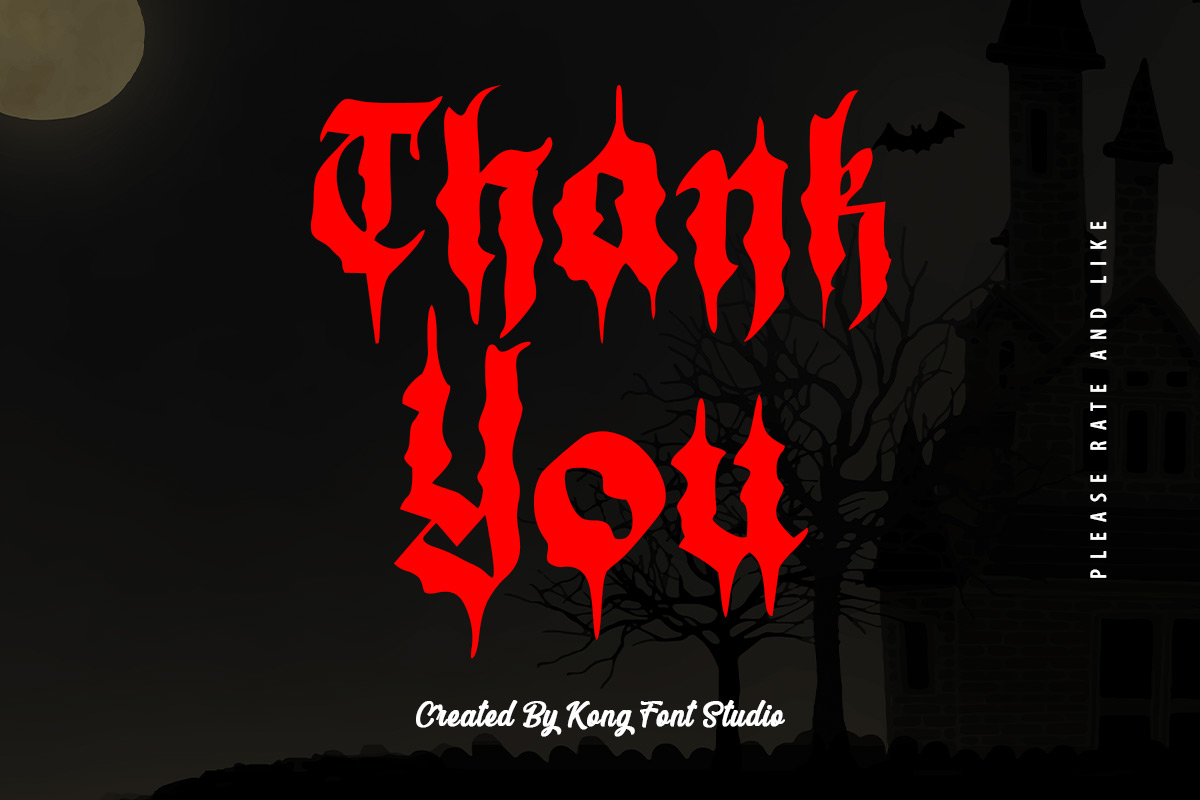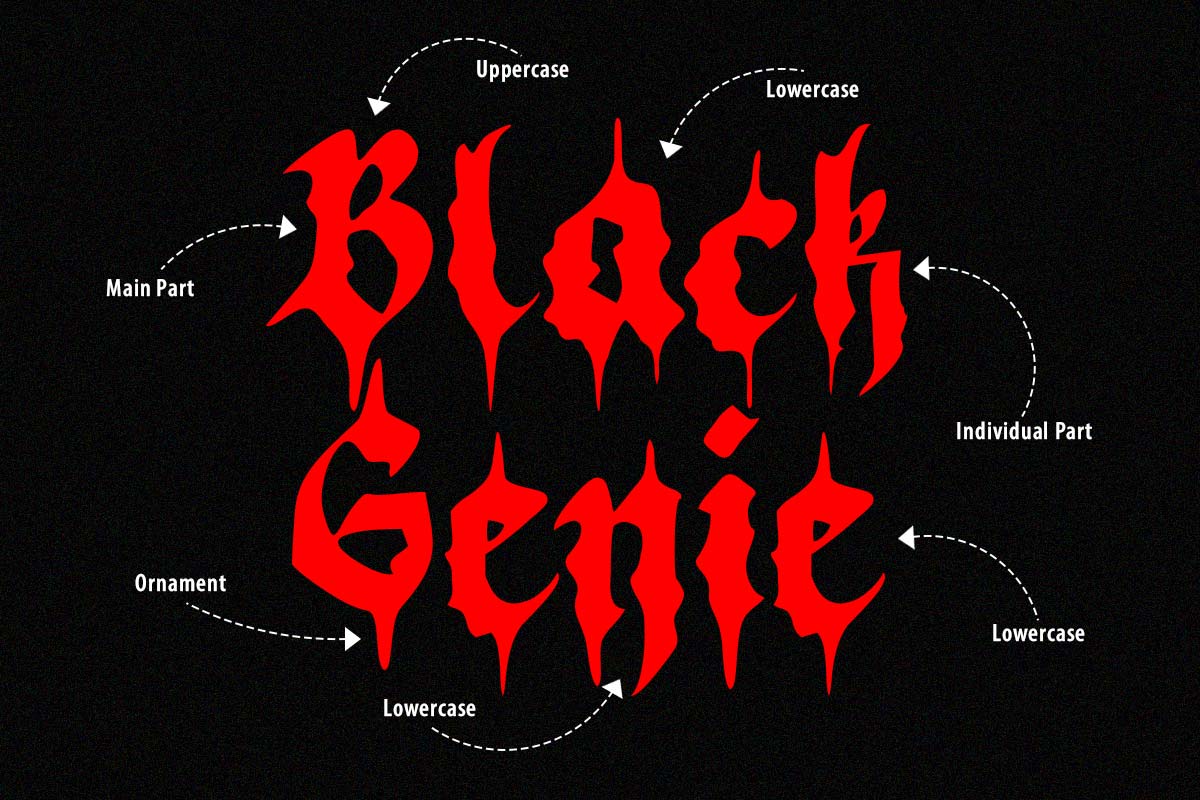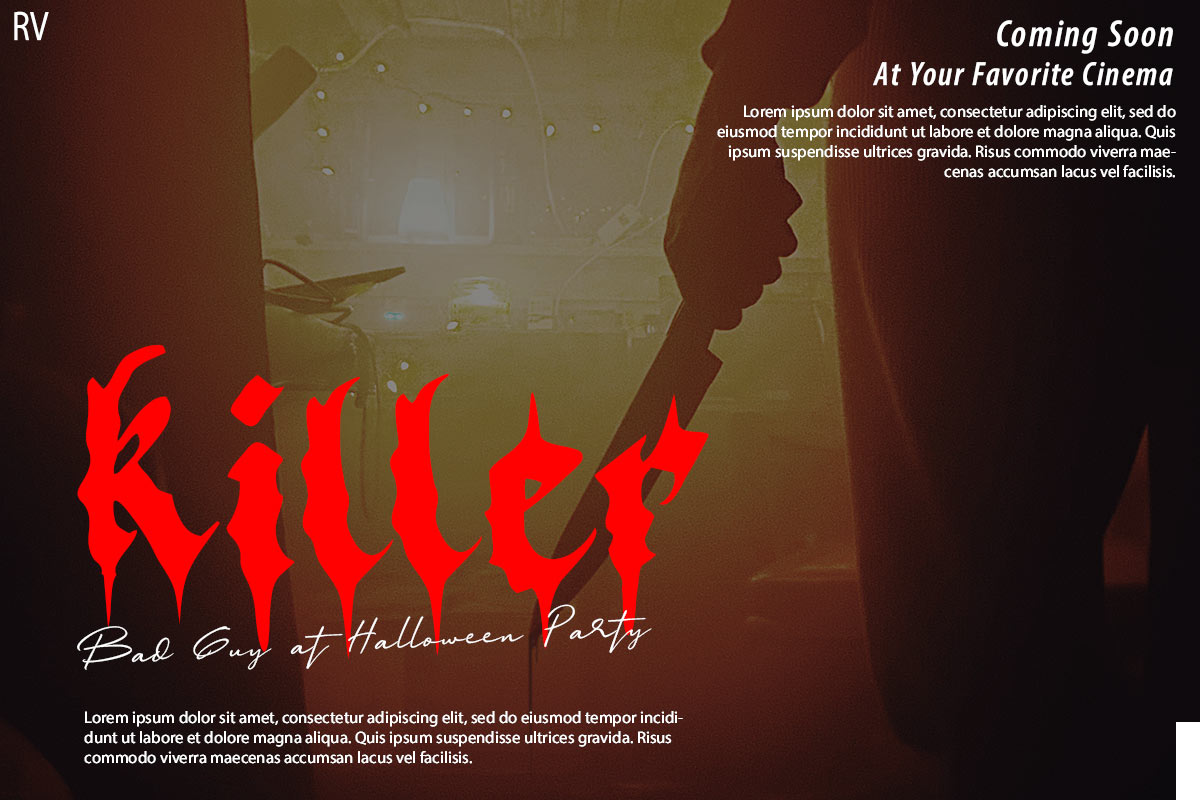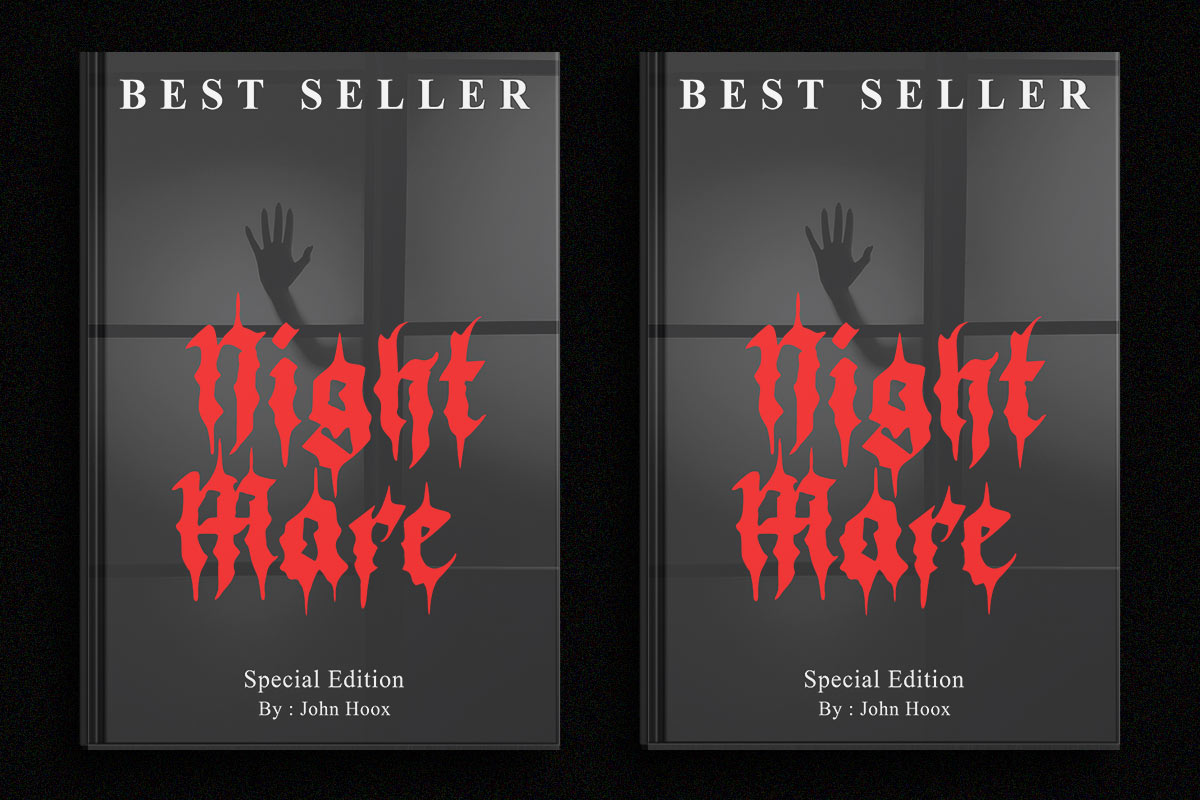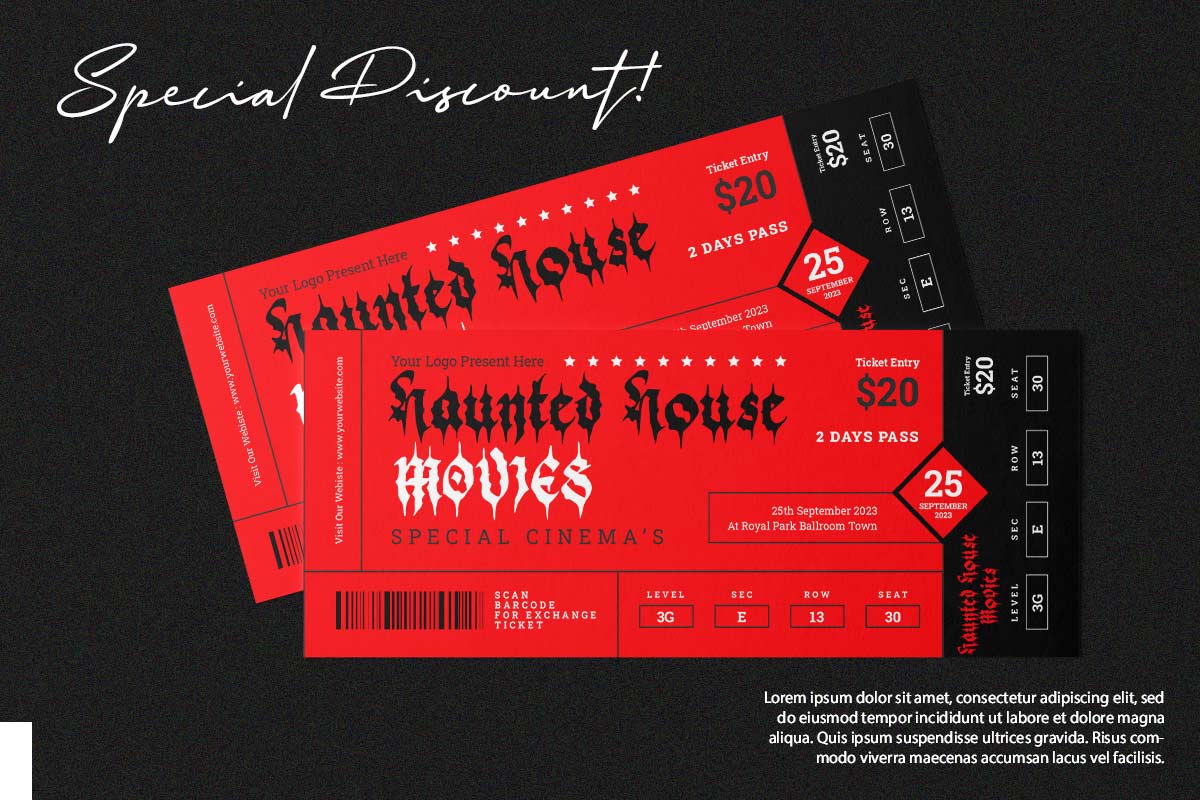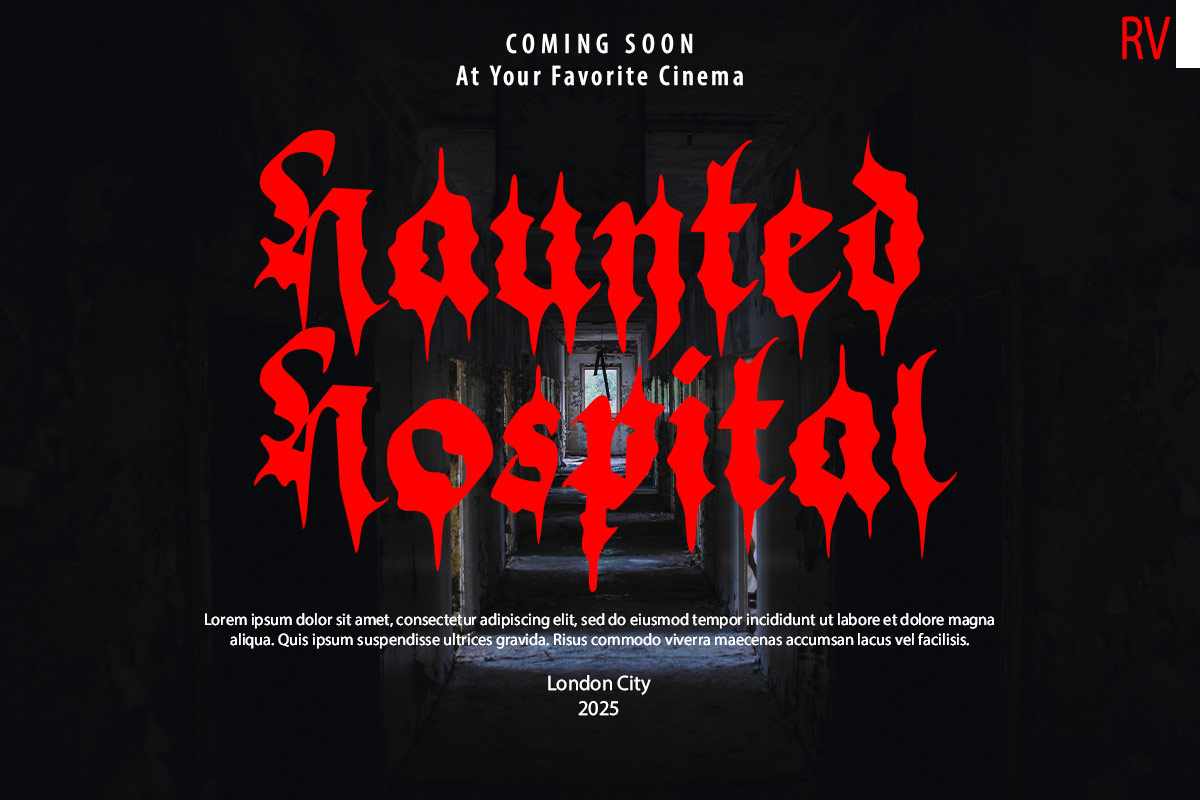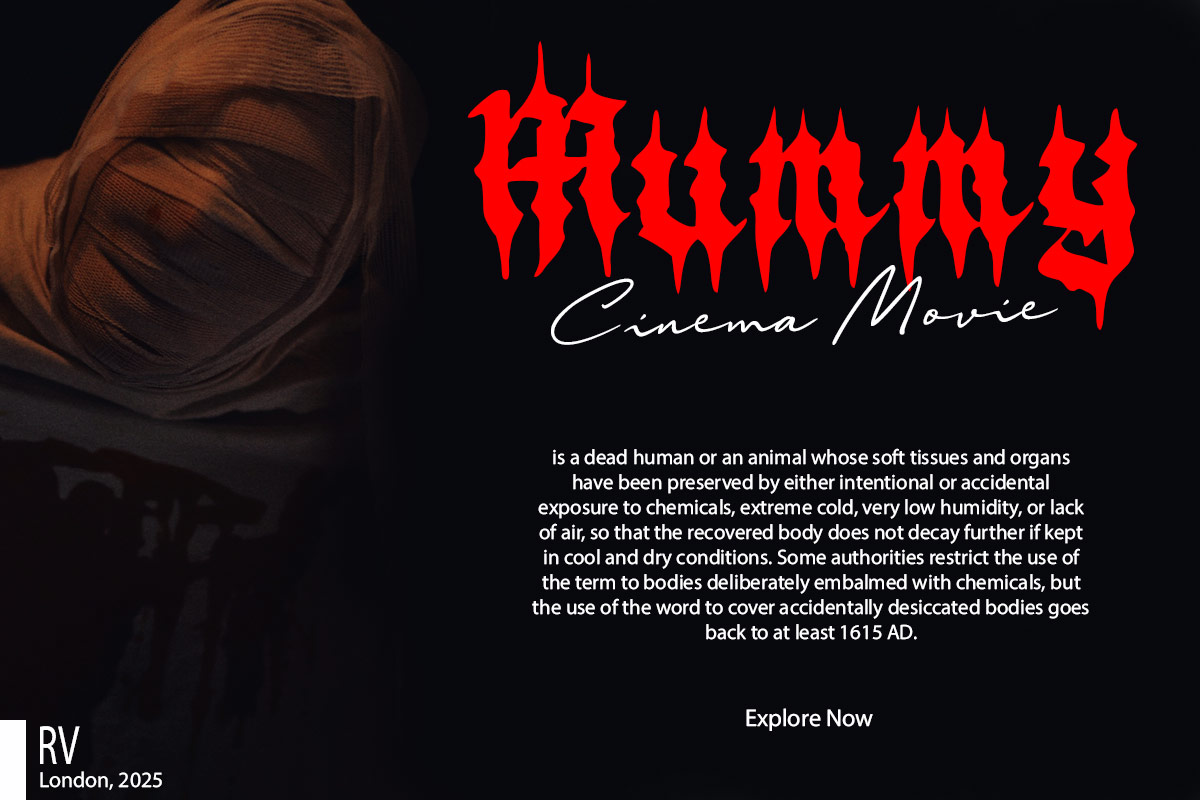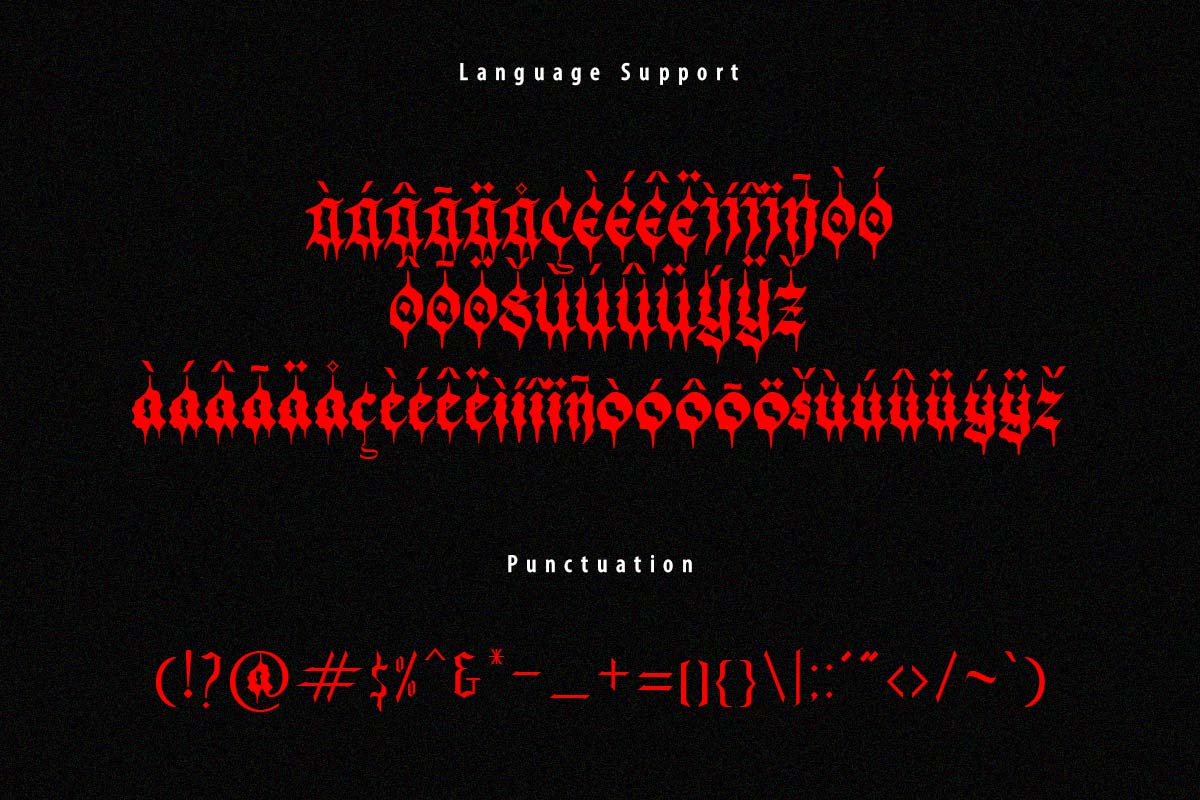
Black Demon Blackletter Font comes as a part of the modern gothic from Blackletter font. It has unique and interesting characteristics. We can see how this font is very thick with horror and scary atmosphere because of the drops of blood. Black Demon Blackletter Font is illegible. However, it will be difficult to read if it is small font size and viewed from a distance. Font Kong provides Black Demon Blackletter Font for two functions, namely embroidery and online font. This font is the best font used to enliven a themed party horror. If you're a creative person and like to get busy with party preparations, you can use this font for making posters, invitation cards, decorations, and all kinds of banners. The bloody look of this font can help you build a darker and more scary atmosphere for your party. In addition to party purposes, this font can be combined with several items such as mystery book covers and horror movie posters. If you like gothic typography stylized and fiction, you should choose a horror font to add to your collection. This modern blackletter typeface is also perfect for writers looking for a dark-themed font to use in their horror novels or movie titles. This font will amplify the horror vibes on their book covers and videos. You can also use this font for horror movie intros or trailers because the unique font design will grab the attention of horror movie audiences. By reinforcing the right visuals, like this font design, you can help build their curiosity and interest. The match described is certainly present because the Black Demon Blackletter Font shows a very strong spooky impression. For your social media needs, you can use and install fonts in our collection of Blackletter fonts to use as Instagram Fonts, Facebook Fonts, and Twitter Fonts. As well as the application of this font, you can use it in several applications, such as Figma fonts, Canva fonts, Freepik fonts, Adobe fonts, Google fonts, Instagram fonts, and Social Media Fonts. With various explanations of the advantages and uses of the Black Demon Blackletter Font, you will not regret using this font. It will be one type of font that must be considered to eventually become an option.